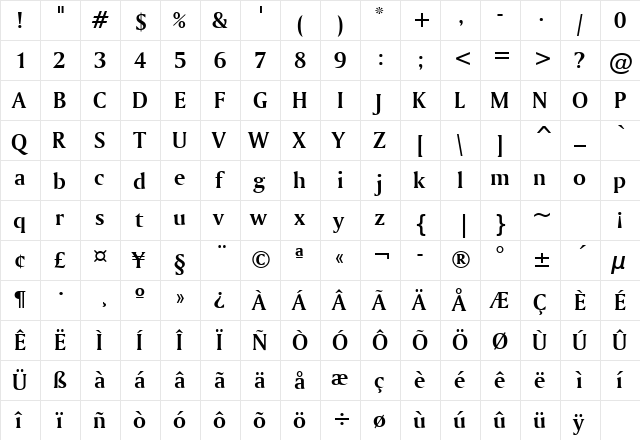
Amerigo GX BT Bold Font Preview
Amerigo GX BT Bold
Amerigo GX BT Bold Font Details
Design Context for Amerigo GX BT Typeface
Amerigo GX BT takes a measured approach to typography — its balanced proportions and neutral character make it a reliable workhorse for both digital and print work. The heavy weight commands attention and anchors typographic hierarchies.